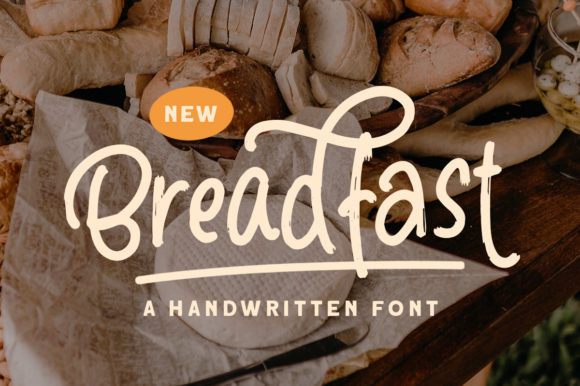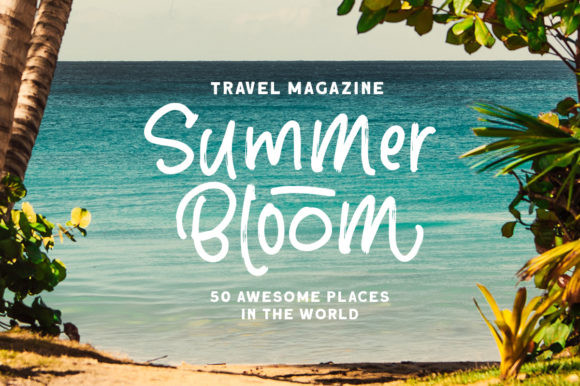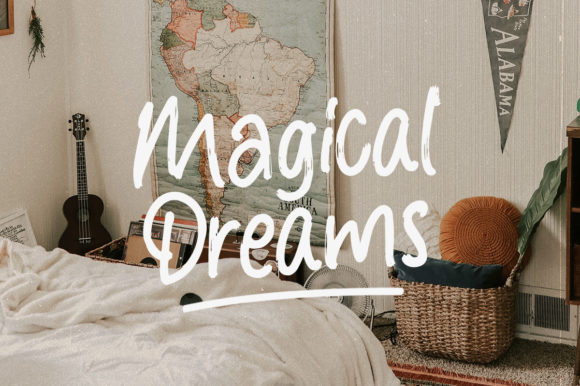
Breadfast Font
Breadfast is an organic and casual handwritten font. Incredibly versatile, this font fits a wide pool of designs, elevating them to the highest levels. Add this font to your favorite creative ideas and notice how it makes them come alive!